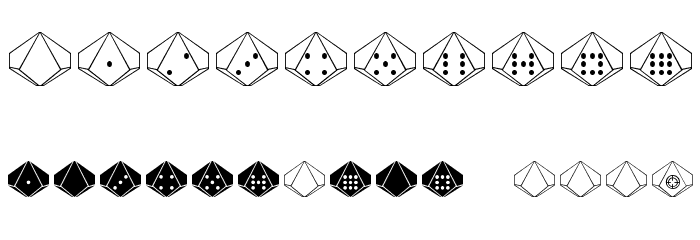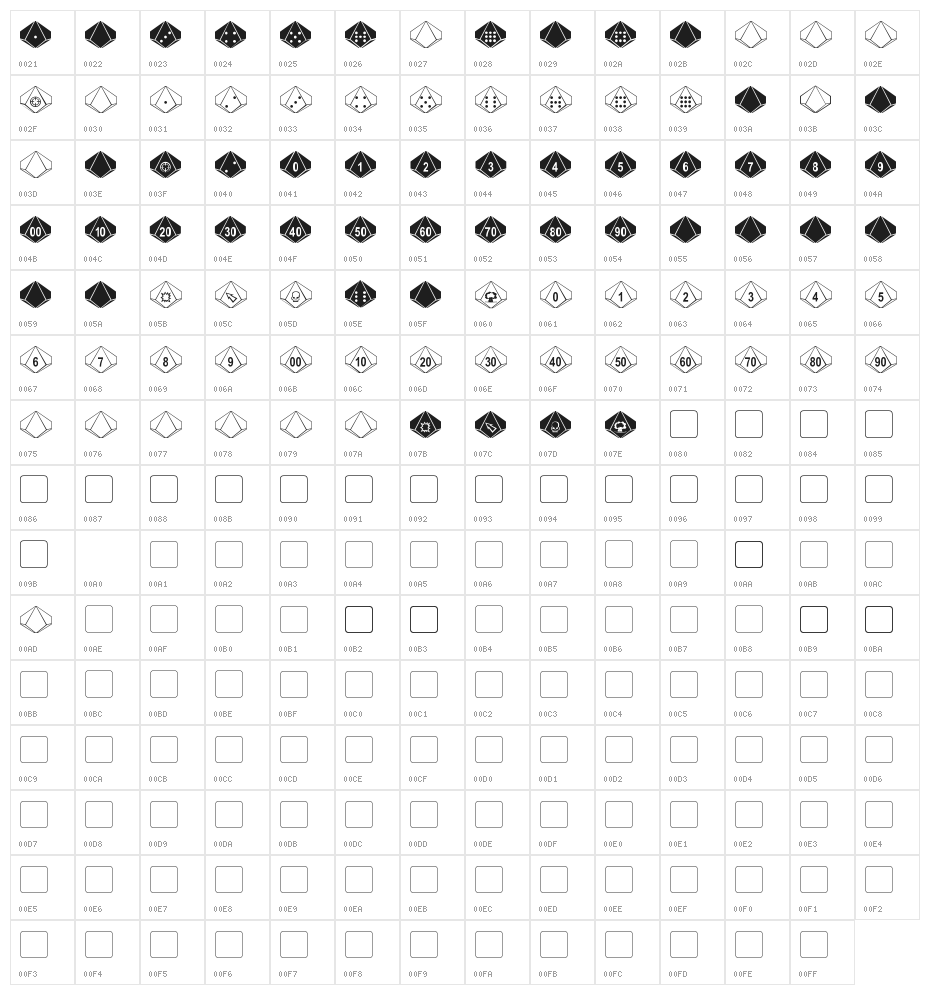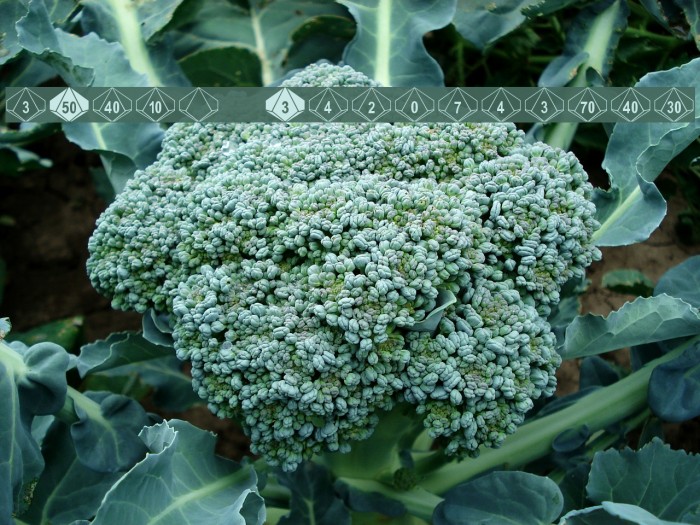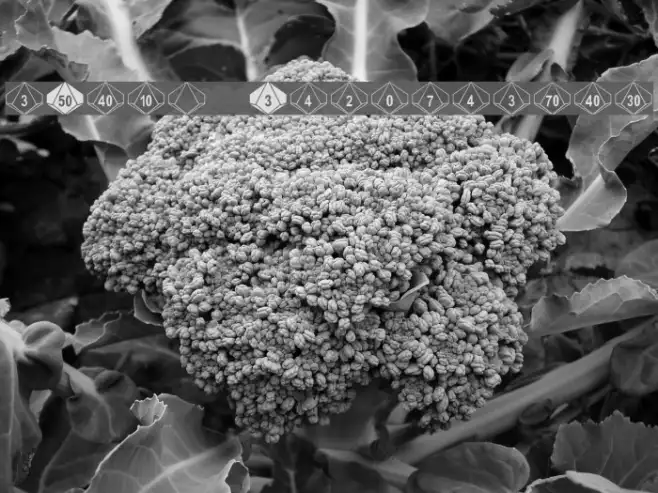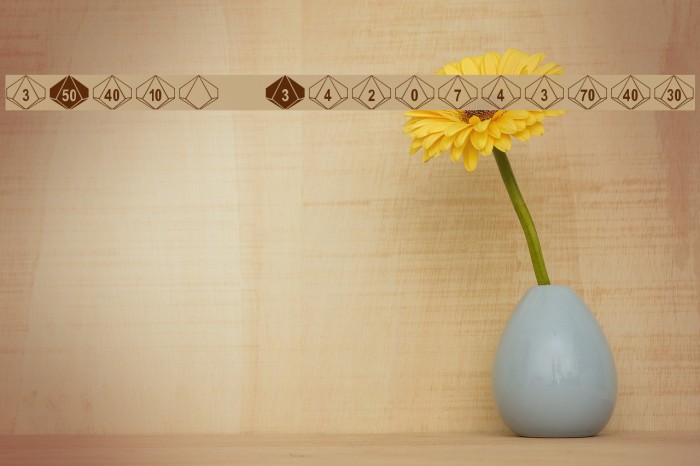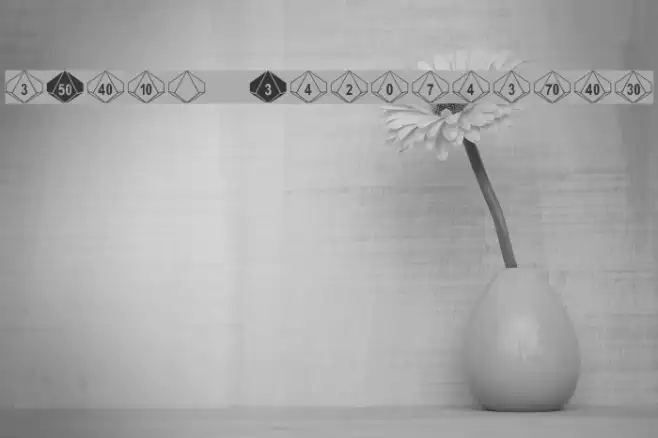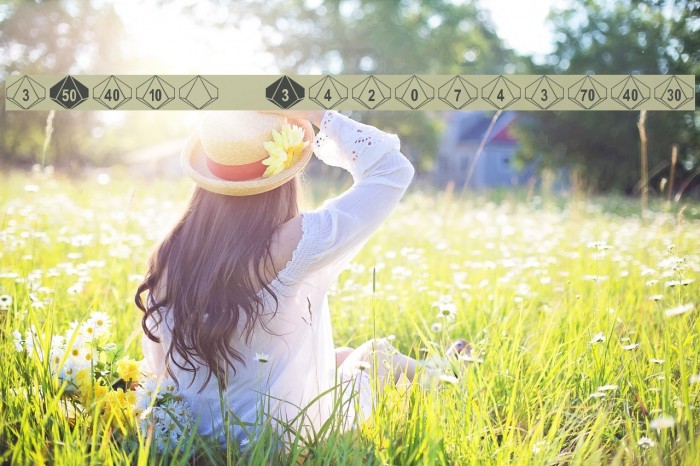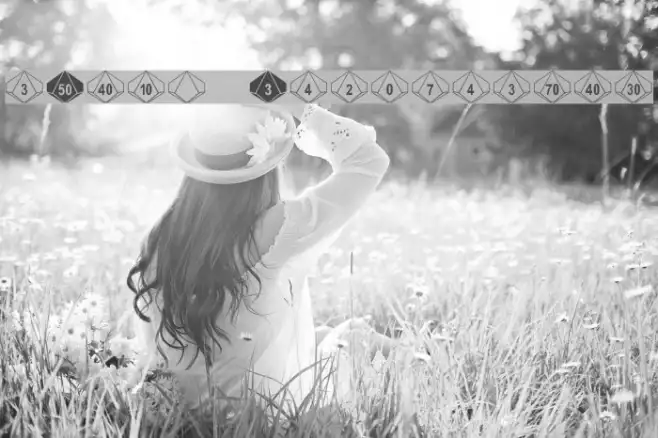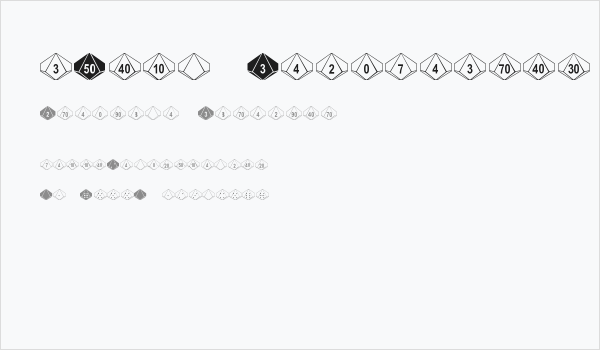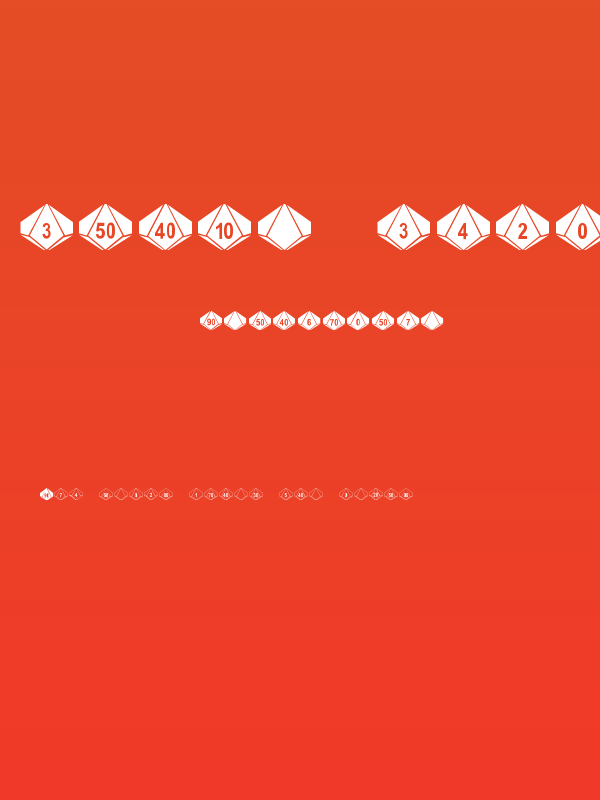
dPoly Decahedron Font
dPoly Decahedron Description
A geometric, decorative font where each character is enclosed within a stylized pentagonal decahedron shape, featuring both filled and outlined versions, as well as numeric and dot-based representations. The font is highly thematic, evoking polyhedral dice used in tabletop games.
| Overall Style | Decorative, playful, geometric |
| Use Case | Logos, game materials, headlines, educational displays |
| Proposed Projects | Board games, tabletop RPG materials, educational math tools, themed posters, playful branding. |